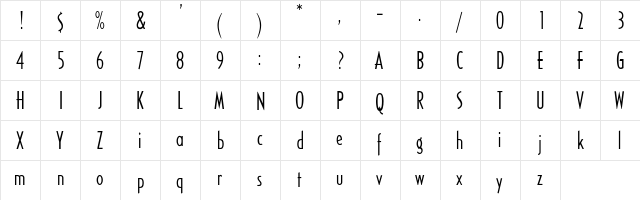
SandyhillConden Regular Font Preview
SandyhillConden Regular
Design Context for SandyhillConden Typeface
SandyhillConden takes a measured approach to typography — its balanced proportions and neutral character make it a reliable workhorse for both digital and print work. The condensed width makes it efficient for tight spaces without sacrificing legibility.